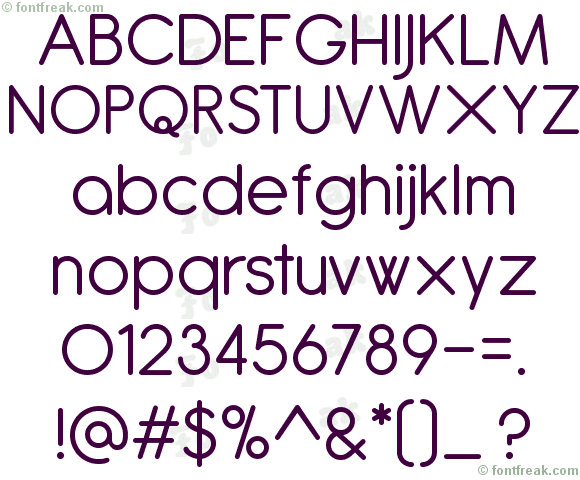
Antipasto
Antipasto ExtraBold
Antipasto ExtraLight
Antipasto, designed by the innovative kmzero font foundry, is a captivating sans-serif typeface that effortlessly merges modernity and versatility. With its striking extrabold and extralight variations, this font showcases a unique balance between bold presence and delicate finesse. The visual characteristics of the Antipasto font are marked by clean lines and a consistent stroke weight, creating a harmonious flow that is both inviting and easy to read. The spacing is meticulously crafted, ensuring that each character breathes while maintaining a cohesive overall appearance.
This typeface shines in various applications, making it an excellent choice for graphic designers and small business owners alike. Its clean aesthetic makes it ideal for restaurant menus and food packaging, where clarity and appeal are paramount. Additionally, Antipasto works beautifully for wedding invitations and event flyers, lending a touch of elegance without overpowering the design. Creative content creators can also utilize this font for social media graphics and branding materials, as it captures attention while remaining approachable.
The target audience for Antipasto includes graphic designers looking for a contemporary typeface that stands out, as well as small business owners aiming to elevate their branding with a distinctive look. Content creators can leverage this font to craft engaging visuals that resonate with their audience.
What truly sets the Antipasto font apart is its ability to adapt to a myriad of design contexts while maintaining its unique charm. Whether used in a bold headline or a subtle body text, Antipasto remains versatile, making it an essential addition to any designer's toolkit. For those interested in exploring this exceptional typeface, the Antipasto font free download is readily available, allowing you to elevate your projects with ease.